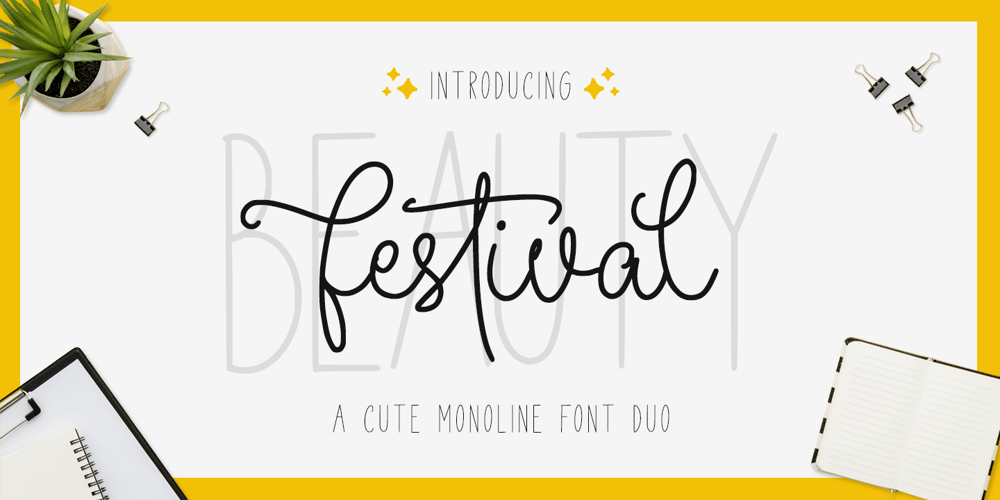
Beauty Festival
Beauty Festival font
Beauty Festival Font Family was designed by Hayinah and published by Rockboys Studio. Beauty Festival contains 2 styles and family package options. The Beauty Festival Font Duo is a handwritten script that is combined with a slick yet playful looking sans. The duo works very well for a lot of different types of projects.